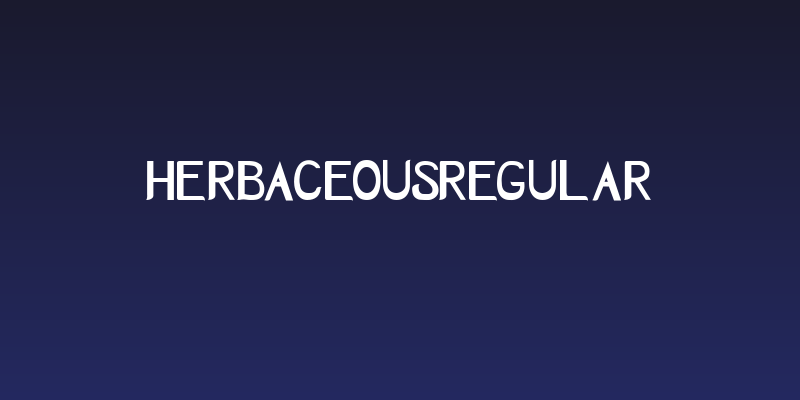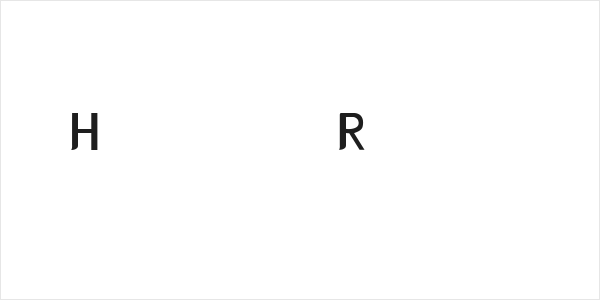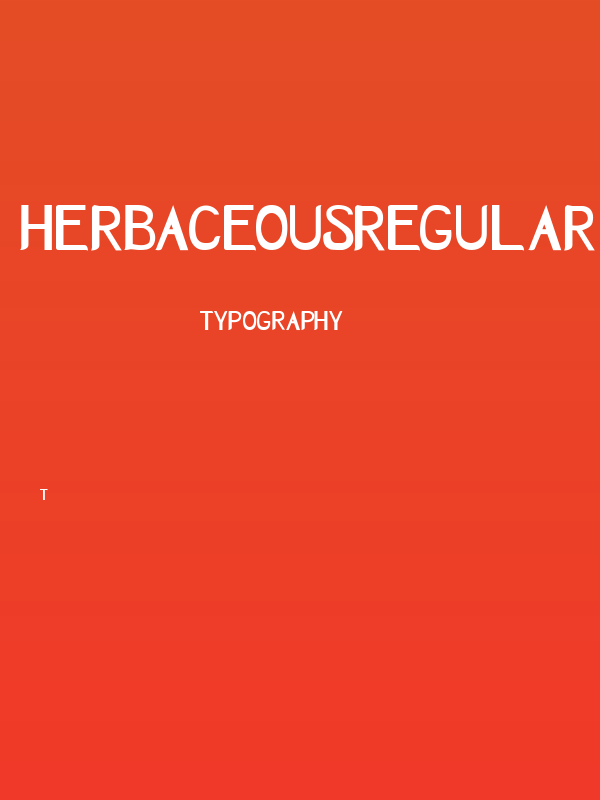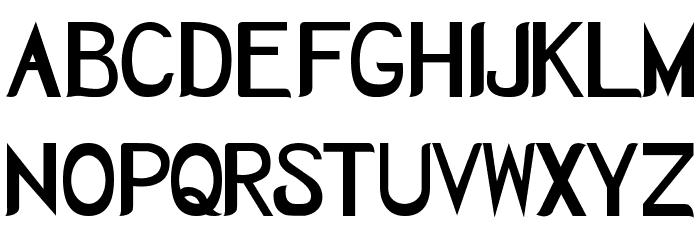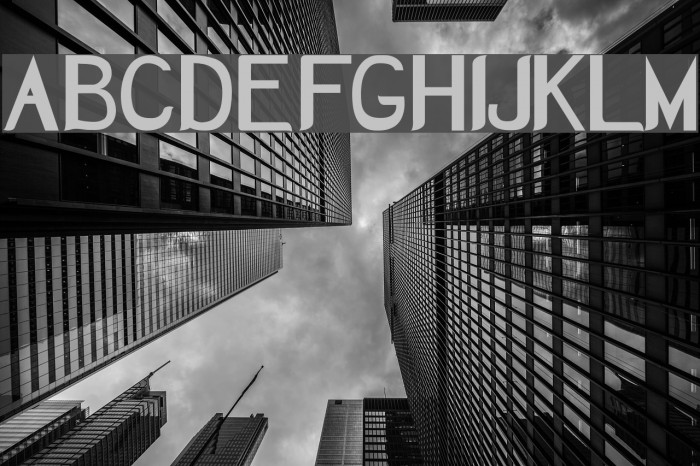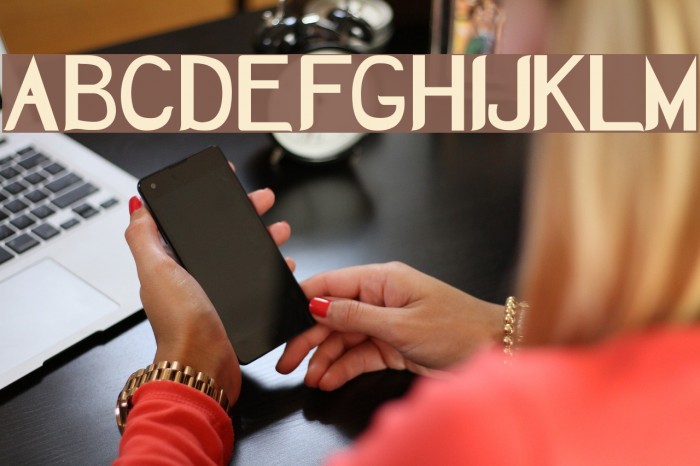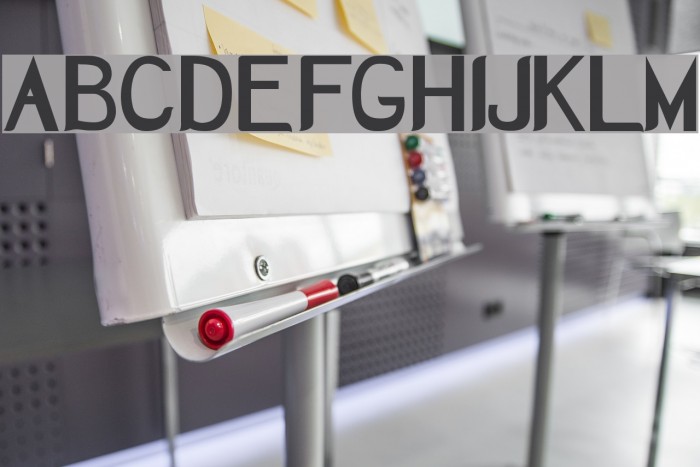
HerbaceousRegular Font
HerbaceousRegular Description
This font features a clean and modern sans-serif design with a slightly condensed appearance. The characters are uniform in width, providing a balanced and harmonious look. The strokes are consistent, with medium contrast, giving the font a sleek and professional feel. The uppercase letters are bold and assertive, while the lowercase letters maintain a similar weight, ensuring readability across different sizes. The numerals are clear and distinct, making them suitable for various applications. Special characters are well-integrated, maintaining the overall aesthetic of the font.
| Proposed Projects | Ideal for branding, advertising, and editorial design projects where a modern and professional look is desired. |